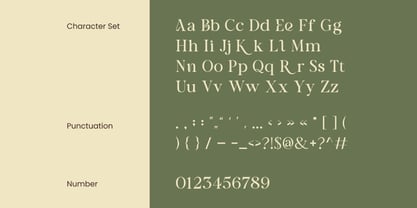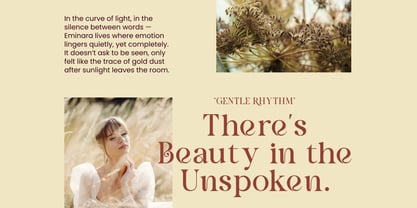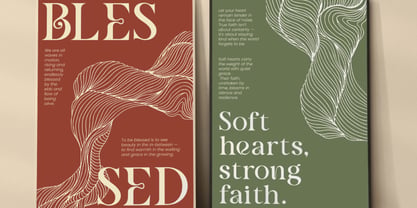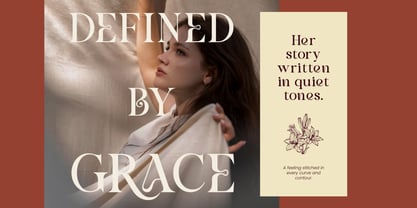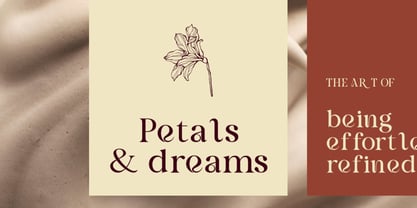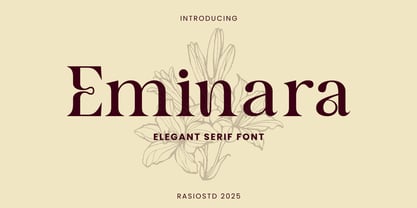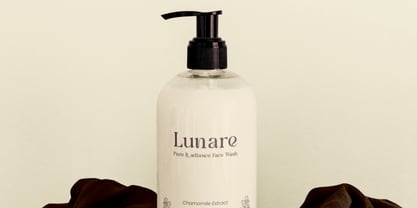
Eminara
by Rasio Studio
The Eminara Font Family was designed by Fajar Indra and published by Rasio Studio. Eminara contains 1 styles. More about this family
Eminara Elegant Serif Font exudes sophistication through its balanced letterforms, subtle contrast, and graceful curves. Each character is thoughtfully designed to combine modern refinement with timeless elegance, resulting in a typeface that feels both artistic and professional. The smooth terminals and refined proportions make Eminara a versatile choice for visual projects that seek class and harmony. Includes uppercase and lowercase letters, numerals, and punctuation. With its refined aesthetic, Eminara enhances branding, editorial layouts, and luxury print materials with poise and distinction.
Designers: Fajar Indra
Foundry: Rasio Studio